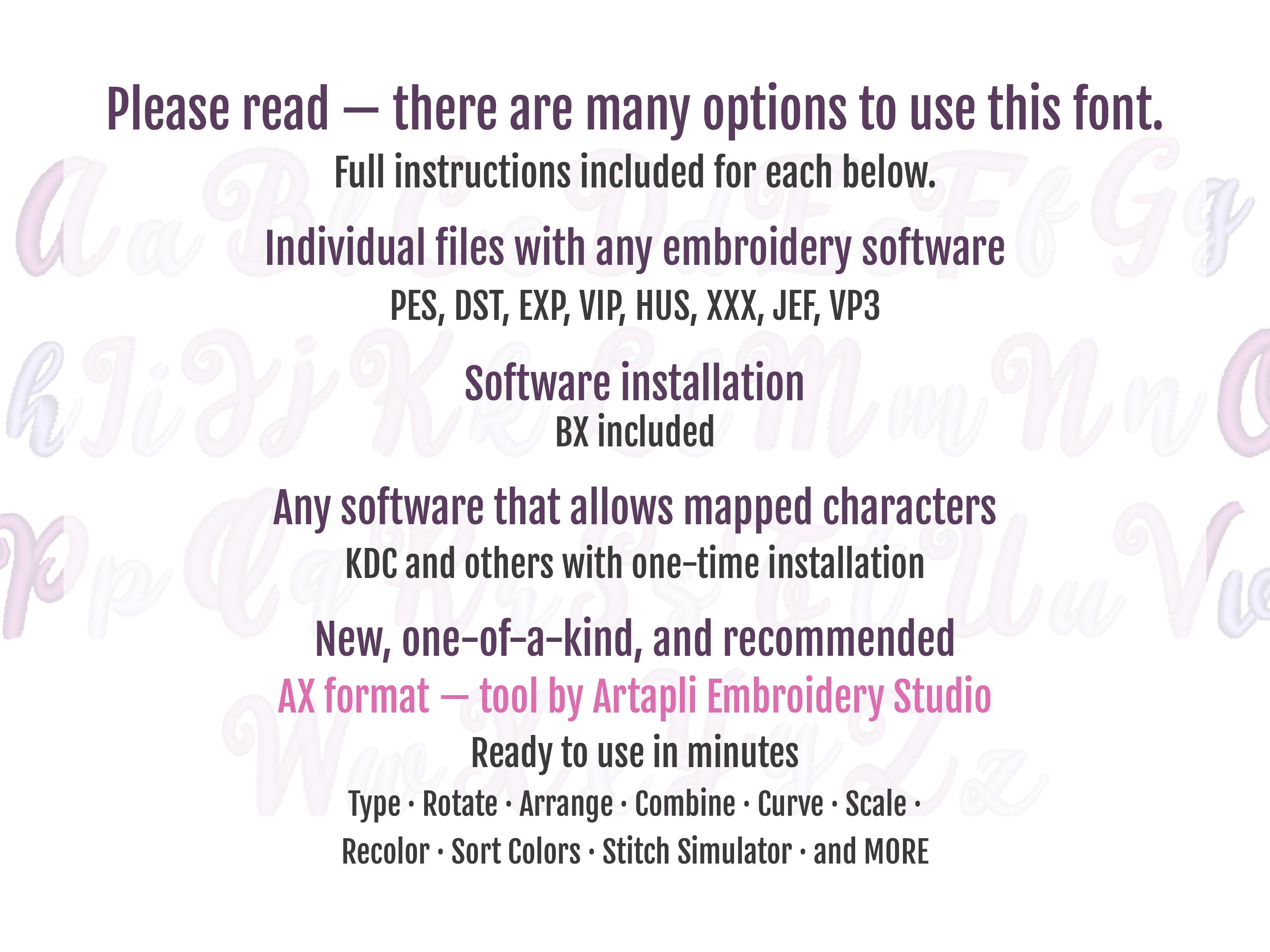
MINI Font machine embroidery designs, monogram, alphabet, satin stitch cursive handwriting font embroidery in Mini sizes
1/2 inches
2/3 inches
1 1/3 inches